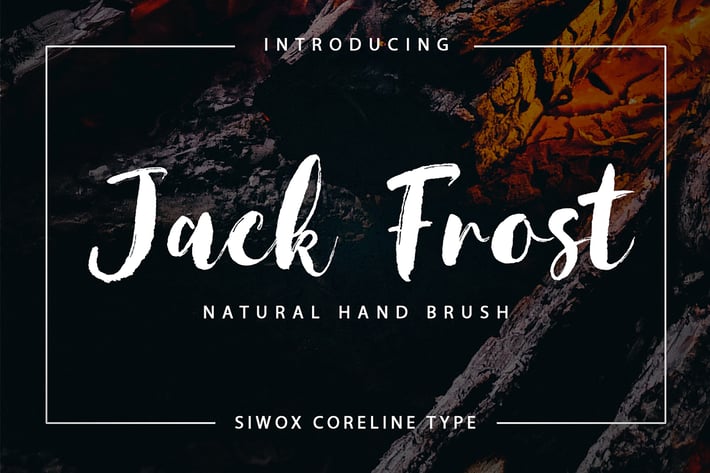
Jack Frost + Webfonts
Let me introduce a JACK FROST BRUSH!
JACK FROST is a handmade style font with stunning characters. Made with a brush and high quality water-based ink. Ideal for name tag, handwritten quotes, product packaging, merchandise, social media, greeting cards, etc. It contains a full set of lower & uppercase letters, a large range of punctuation, numerals.
To make your designs look even more naturally handwritten, JACK FROST BRUSH has 1 extra sets of Contextual alternate & Stylistic lowercase letters.